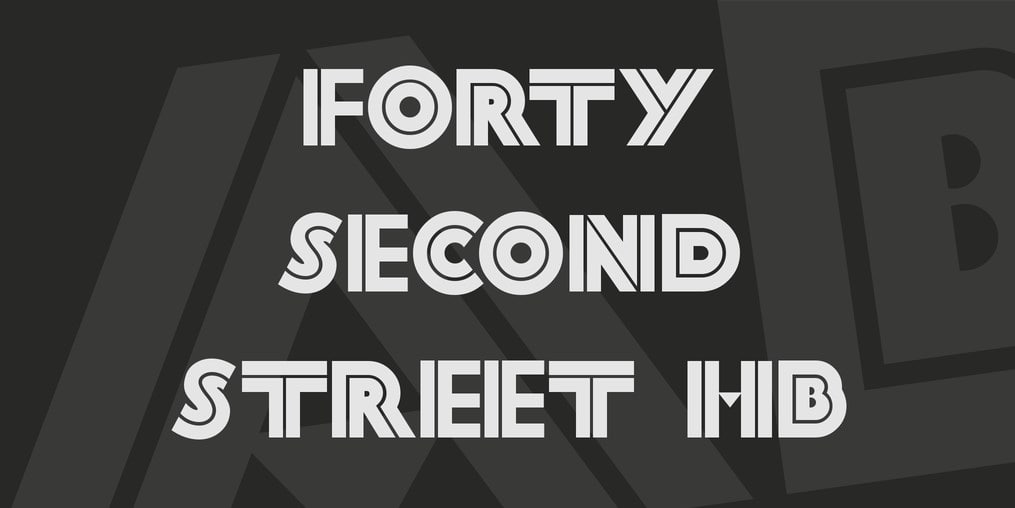
Today, with the way, the design industry is heading, the ‘fonts’ have become the hottest trend – and with thousands and thousands of fonts to choose from, the designers are spoilt for choice.
Every day, fonts are being designed, and one such font is ‘inline fonts’ – they have been ruling the scene recently; these fonts not only give the content a majestic look but they also lend a delicate touch to the content, and add to that, the strokes – it’s simply a masterpiece.
So, without any further ado, let’s take a look at some of the best inline fonts – and yep, they are free to boot too!
Lovelo
Free to use for both personal and commercial projects, this font is a geometric sans serif typeface that comes with two line versions – light version and bold version.
Output
Consisting of uppercase letters, this font will work well in editorial designs such as book cover titles or even when used as eye-catching titles on posters.
Ostrich
This is a sans typeface and it comes in two versions – inline version and light version. It is free to use for both free and commercial projects.
Porter Block
This is an inline font, all right, but it comes in a block version, and hence, the name – this font works best when used to create logos or say, headlines; basically anything, that needs to capture the attention of the viewer at first glance.
Crystal
Consisting of both uppercase and lowercase letters, this font has the appearance of crystallized letters – thus, making this font suitable for design projects that focus on editorial design such as magazine titles, book cover titles, or as even as portfolio titles, to name a few.
Metropolis
This is a beautiful inline font that will work best when used to create logos or as a heading on posters or book cover titles.
Forty second street
Also a bold inline font, this font works best when used as heading on posters, book cover titles, or simply as a logos – it consists of uppercase letters with numbers and a few special characters thrown in.
Intro
An eye-catching font, this font is quite a bold one – free to use for both personal and commercial projects, this font is a must to be used when creating heading of any kind such as logos, or section names on websites such as ‘About Us’, ‘Blog’, ‘Our Services’, to name a few.
Monoton
This font looks like it’s created with lines, and comes as a perfect choice to be used when creating logos or say, heading for any websites that give off a vibe of minimalism.
Packard Clipper
Consisting of both uppercase and lowercase letters, this font will be the perfect choice when creating titles for book covers, or say, logos for websites that focus on architectural design.
Zebrra
Consisting of both uppercase and lowercase letters, this font can be used as headlines on posters, brochures, portfolio books, and such – it’s free to use for both commercial and personal projects.
Madison Square
Just like the name says, this font – though an inline font – has the appearance of square fonts with a few curves in between. Consisting of uppercase letters, this font will look it’s best when used to create logos or as book cover titles.
Docker
A sans serif typeface, this font falls in the ‘inline font’ category, and comes in four versions – bold font, outline font, inline font, and inline block font.
This font can be used to create logos, book cover titles, or say, product names for packaging on package boxes.
Rex
Also an inline font, this font will suit best when used to create logos for websites that leans towards minimalism in fields such as interior design, editorial design, or say, architectural design.
Night at the opera
This is a thin inline font that will suit best when creating logos – free to use for both commercial and personal projects, this font comes with uppercase letters with numerous other special characters.
Chocolate kids
This is a beautiful inline font that is more suited for websites that focuses on the female audience, and as such, it can be used to create logos or say, section headers.
It consists of both uppercase and lowercase letters with many other special characters and is free to use for both personal and commercial projects.
Gavabon
This inline font looks like it’s drawn by hand and as such, it looks like it’s sketched – consisting of both lowercase and uppercase letters, this font can be used to create logos for websites that focus on hand-made products or even on books for book title names that focus on the same.
Absolute pink
An inline font, this font is beautiful – and as such, can be used for logos for websites that focus on the female audience, plus, it can also be used on posters or say, book cover titles.
It consists of both uppercase and lowercase letters, with special characters such as slashes and curves thrown in.
Consisting of both uppercase and lowercase letters, this font is a perfect choice to be used when creating book cover titles for children or even as logos, which focuses on the same, and as such, this font has a playful touch.
It consists of both lowercase and uppercase letters and is free to use for both uppercase and lowercase letters.
Dreamland
An inline font, this font looks like it’s curved or say, round, but is created by lines – consisting of lowercase letters, this font will be a perfect choice when creating logos or say, headings on posters that focus on music.